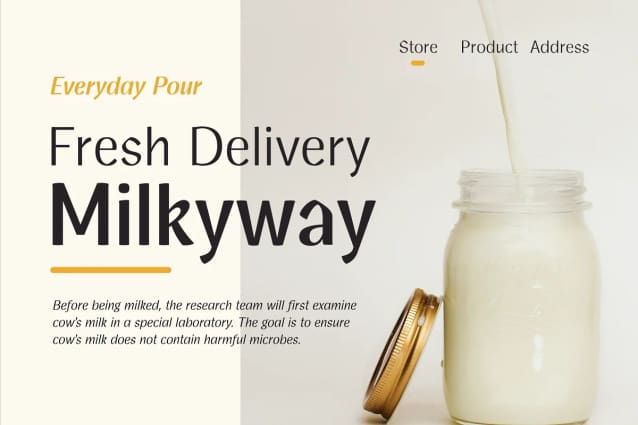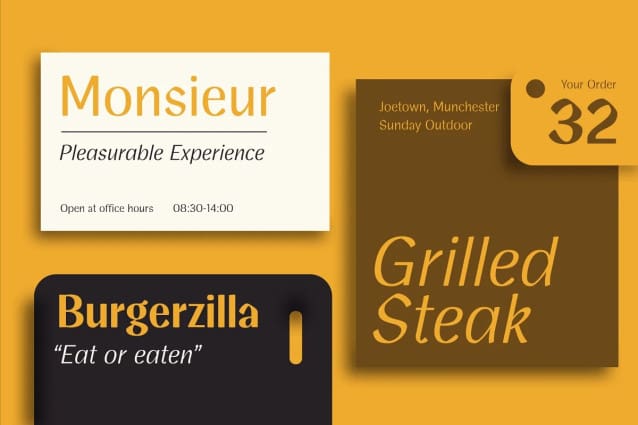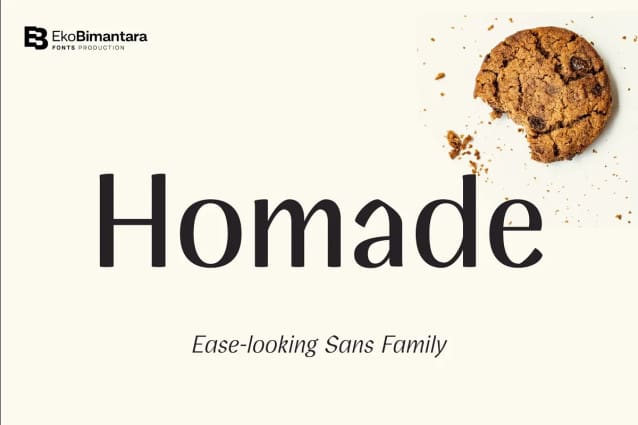
Homade Font
Homade Font is sans font family that created in a way that give an ease-looking, close to casual typeface. It’s fit for branding, product, food or culinary theme and various others. Its consist of 5 styles from regular to extra bold with each matching italics. Its contain 388 glyphs that covered broad latin languages.